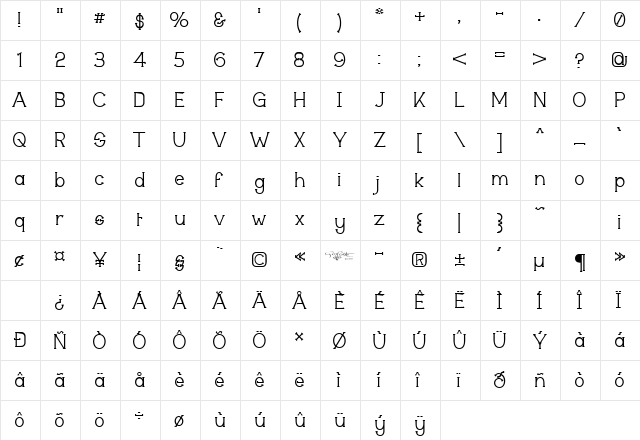
Technically Insane Regular
Design Context for Technically Insane Typeface
Technically Insane has a distinctly futuristic character, with geometric precision and clean angles that feel at home in technology, gaming, and sci-fi contexts.